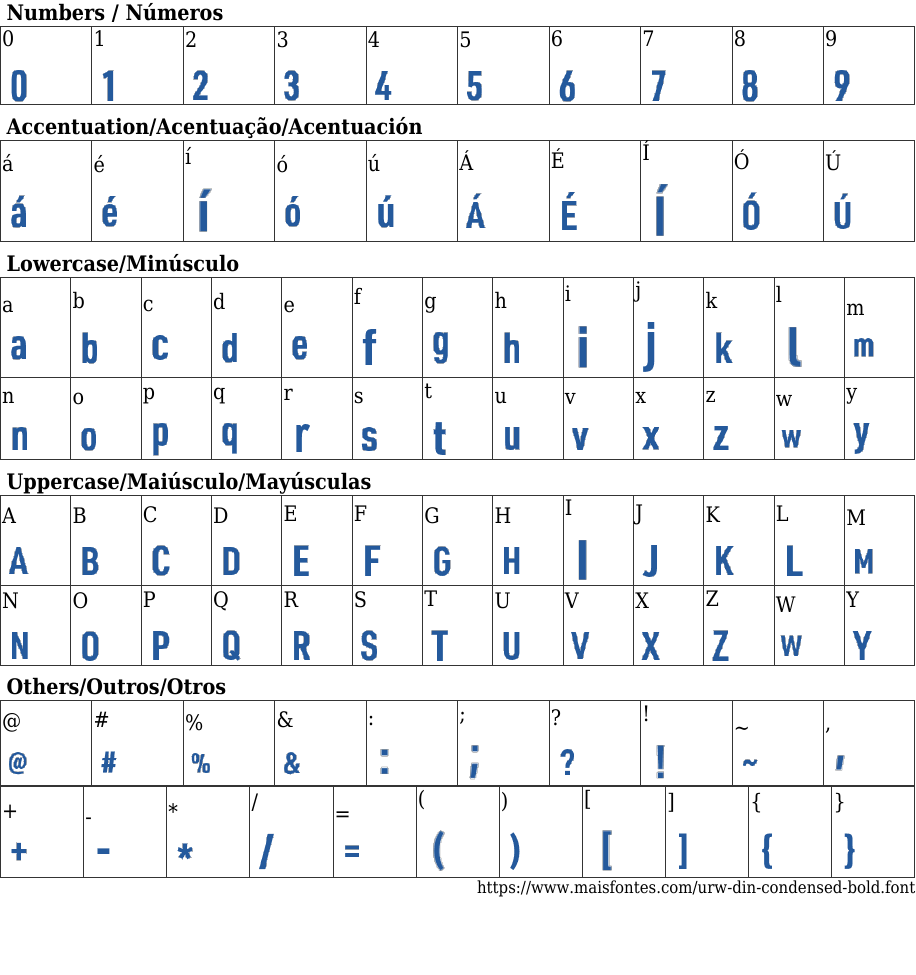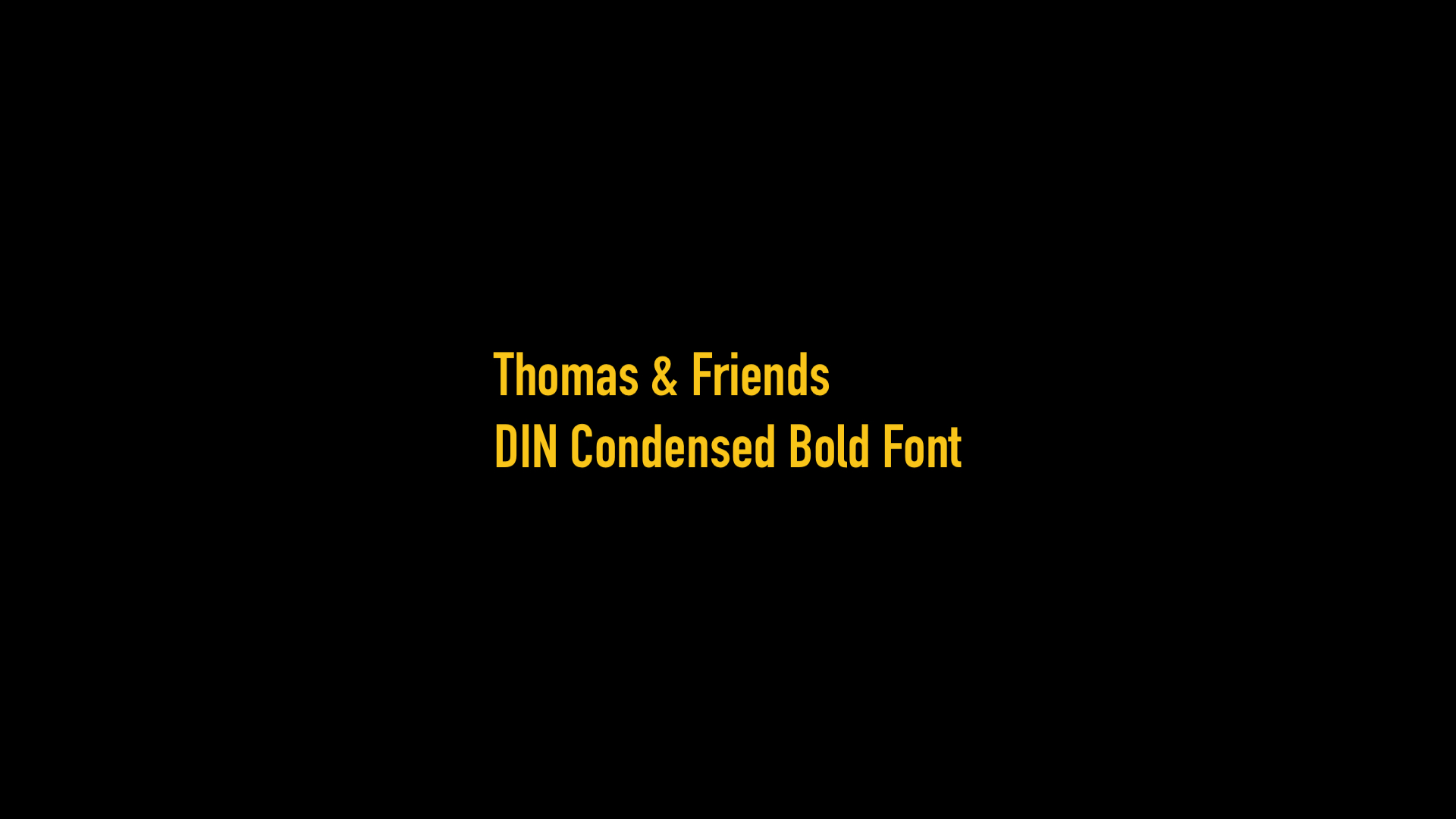
This font can be used on any device and has a bold. Web din condensed is a huge sans serif font family with 4 gorgeous styles and family package options. Web download din condensed bold font, a popular sans serif type font created by linotype staff. This font can be used on any device and has a bold.
Din Condensed Bold Font Free - Installable on pc, mac, linux, ios, and android platforms. Web din condensed is a huge sans serif font family with 4 gorgeous styles and family package options. Web din condensed bold: Web download din condensed bold font, a popular sans serif type font created by linotype staff. Preview and customize the font with 251 characters, including.
Din Condensed Bold Font Free - Web download din condensed, a sans serif typeface with 2 styles, from adobe fonts. Web discover the free din condensed bold font at free font download ! Web din condensed bold: Preview and customize the font with 251 characters, including. Web din condensed is a huge sans serif font family with 4 gorgeous styles and family package options.
Din Condensed Bold Font Free - Web download din condensed bold font, a popular sans serif type font created by linotype staff. Moreover, you can embed it to your website with. Web din condensed bold: Learn about its design, licensing, and. It was designed by manvel.
Din Condensed Bold Font Free - Web din condensed is a huge sans serif font family with 4 gorgeous styles and family package options. Moreover, you can embed it to your website with. Web din condensed bold: Learn about its design, licensing, and. The din condensed bold font brings firmer and bolder letters and.
Din Condensed Bold Font Free - Web discover the free din condensed bold font at free font download ! Learn about its design, licensing, and. This font can be used on any device and has a bold. The din condensed bold font brings firmer and bolder letters and. Preview and customize the font with 251 characters, including.
Din Condensed Bold Font Free - Web din condensed is a huge sans serif font family with 4 gorgeous styles and family package options. Web download din condensed, a sans serif typeface with 2 styles, from adobe fonts. Moreover, you can embed it to your website with. This font can be used on any device and has a bold. The din condensed bold font brings firmer.
Din Condensed Bold Font Free - Web download din condensed, a sans serif typeface with 2 styles, from adobe fonts. The din condensed bold font brings firmer and bolder letters and. Installable on pc, mac, linux, ios, and android platforms. This font can be used on any device and has a bold. Web download din condensed bold font, a popular sans serif type font created by.
Din Condensed Bold Font Free - Web download din condensed, a sans serif typeface with 2 styles, from adobe fonts. Preview and customize the font with 251 characters, including. Web discover the free din condensed bold font at free font download ! Web din condensed is a huge sans serif font family with 4 gorgeous styles and family package options. Moreover, you can embed it to.
Din Condensed Bold Font Free - This font can be used on any device and has a bold. Moreover, you can embed it to your website with. Learn about its design, licensing, and. Web din condensed bold: Web discover the free din condensed bold font at free font download !
Din Condensed Bold Font Free - Web discover the free din condensed bold font at free font download ! It was designed by manvel. The din condensed bold font brings firmer and bolder letters and. Web download din condensed, a sans serif typeface with 2 styles, from adobe fonts. Web din condensed bold: